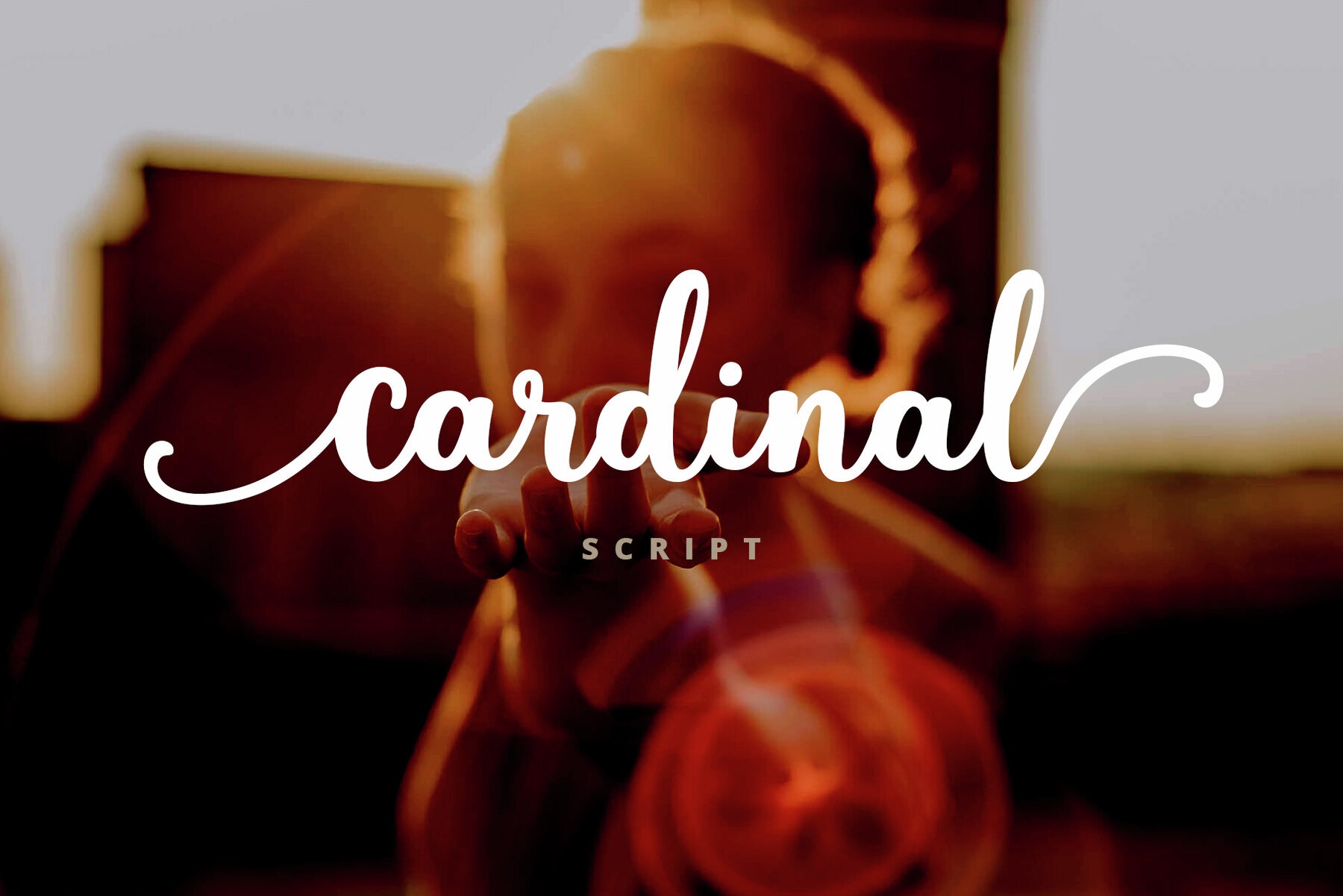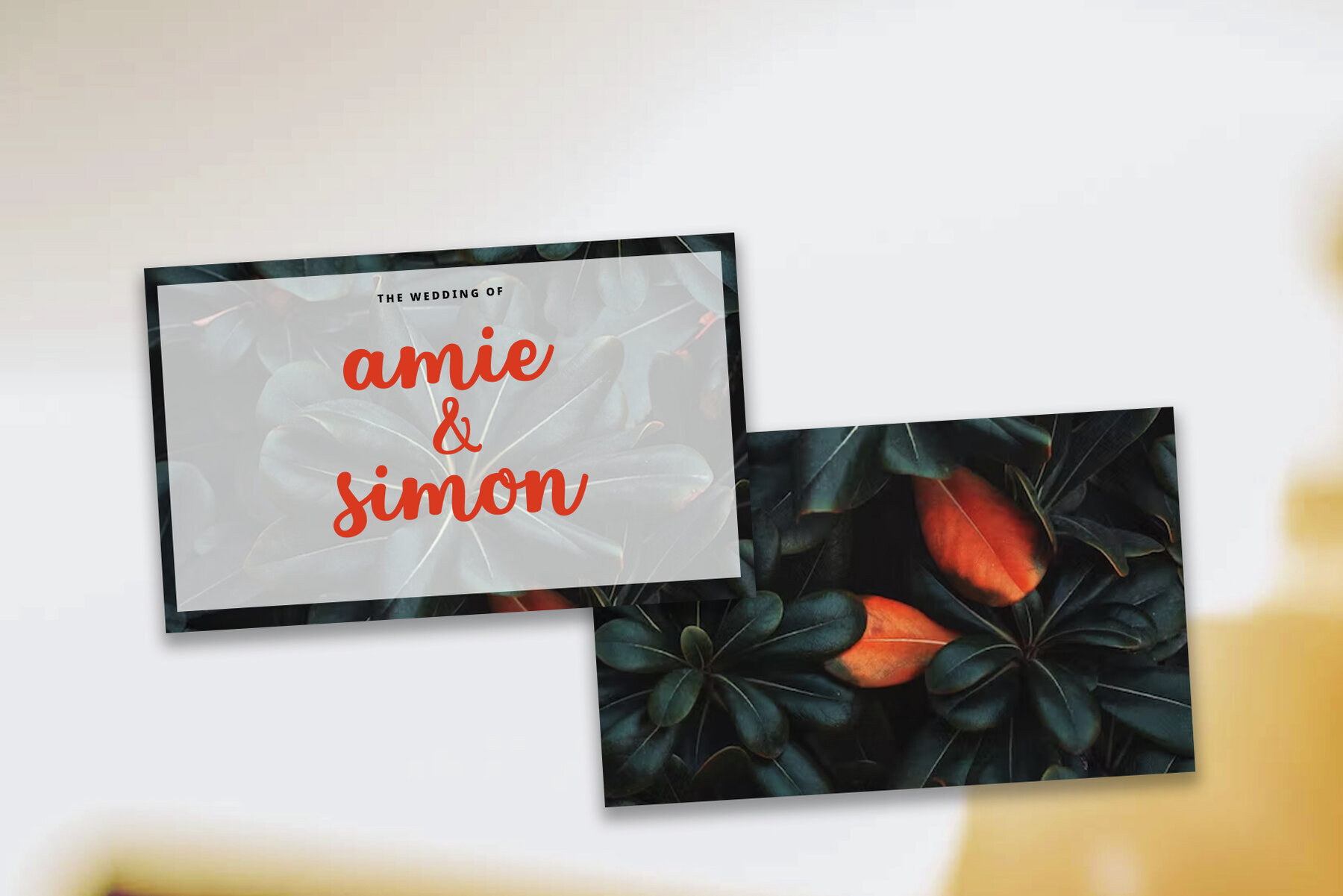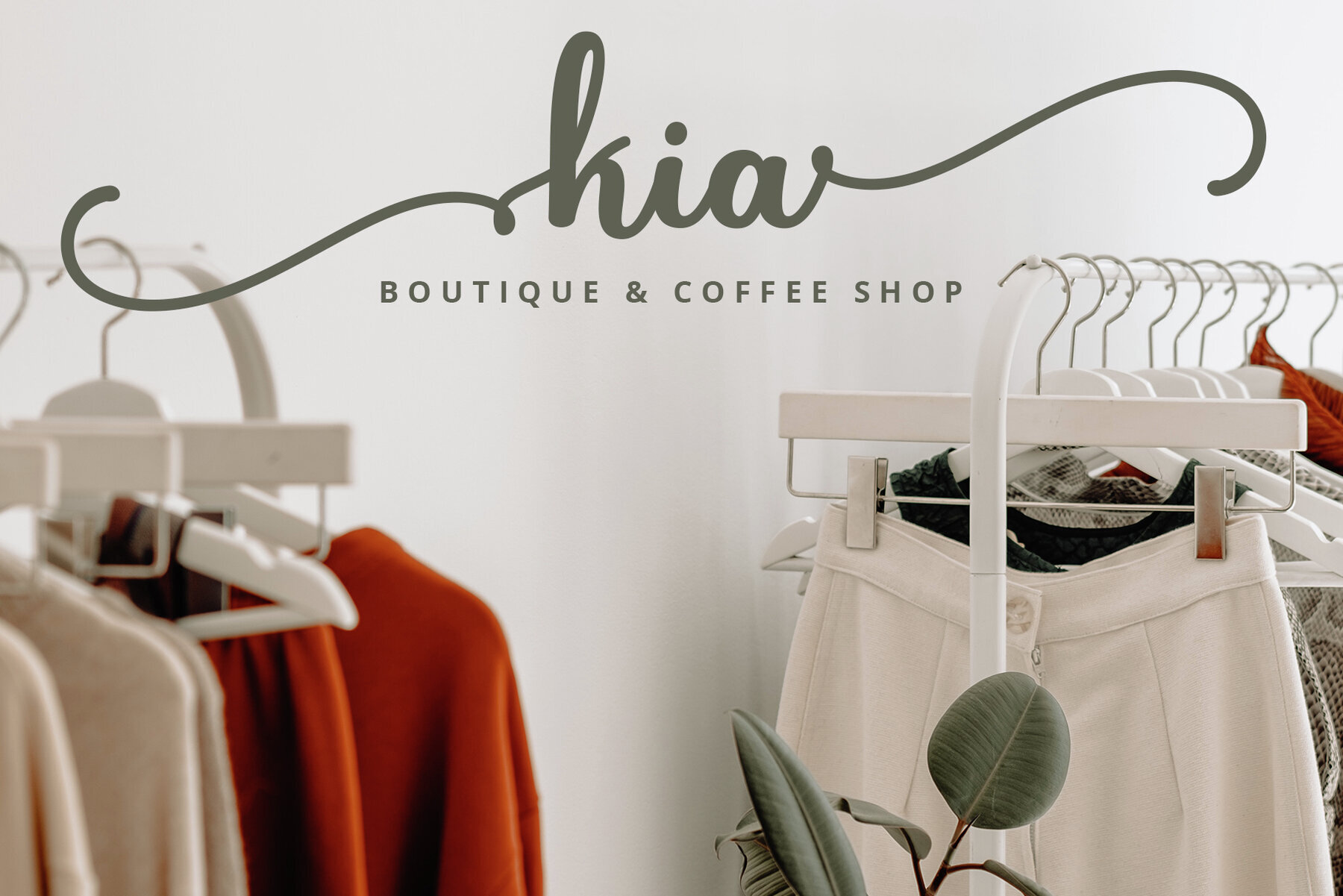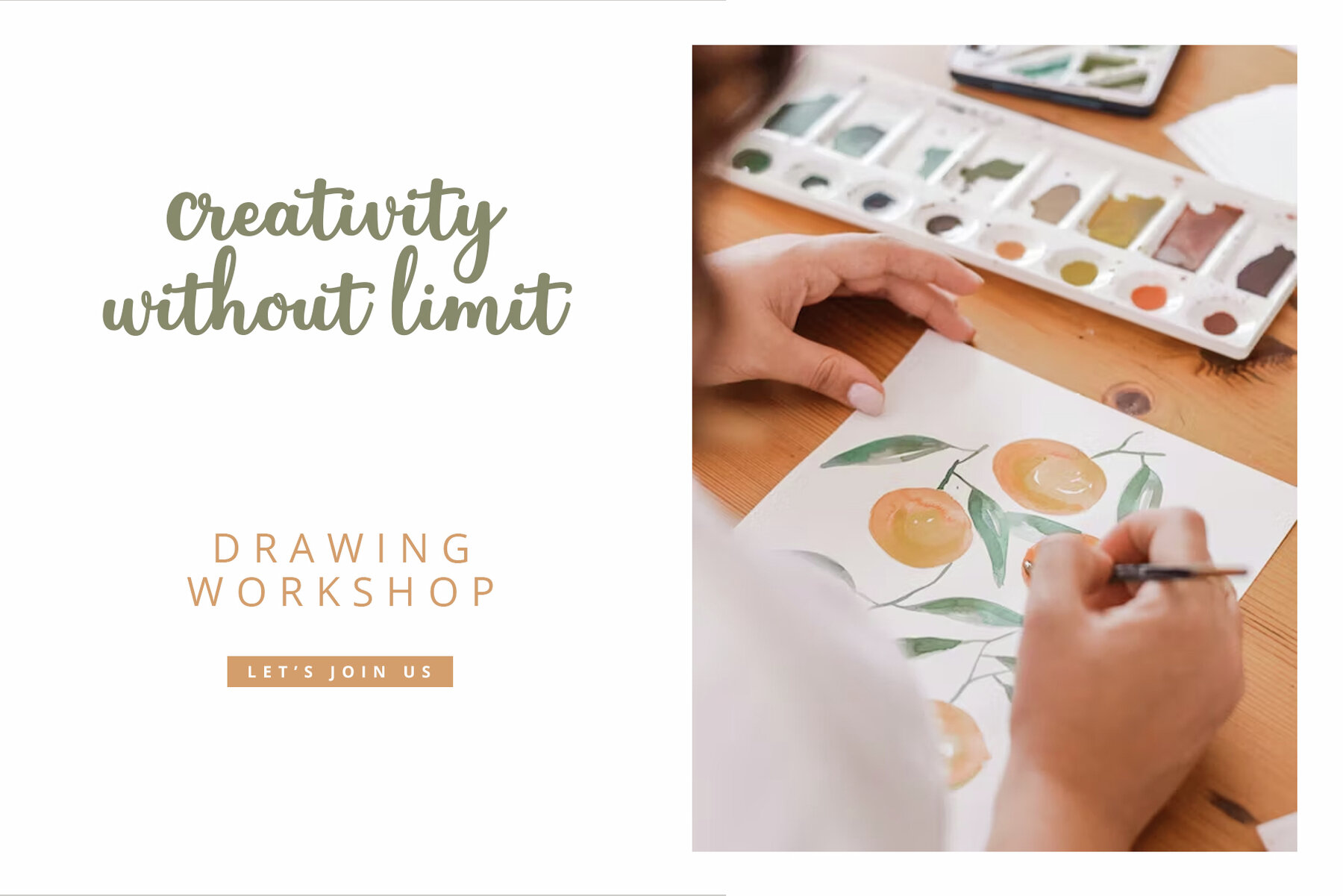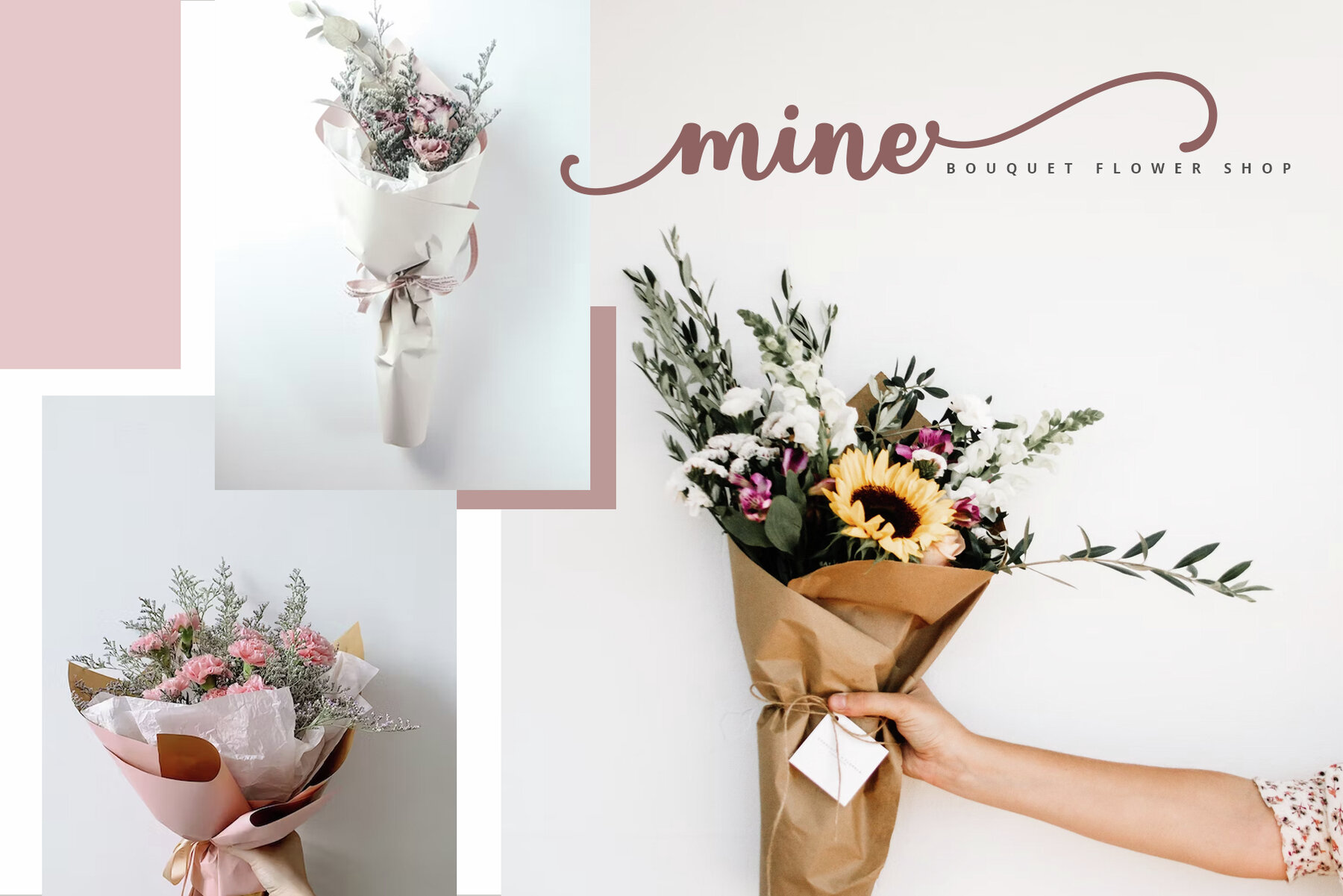
Cardinal Font
Cardinal Script
Discover the allure of Cardinal, a stunning handmade script font, meticulously crafted by FadeLine Studio. With its clean and elegant strokes, this font adds a playful and charming touch to any design project.Cardinal Script Font